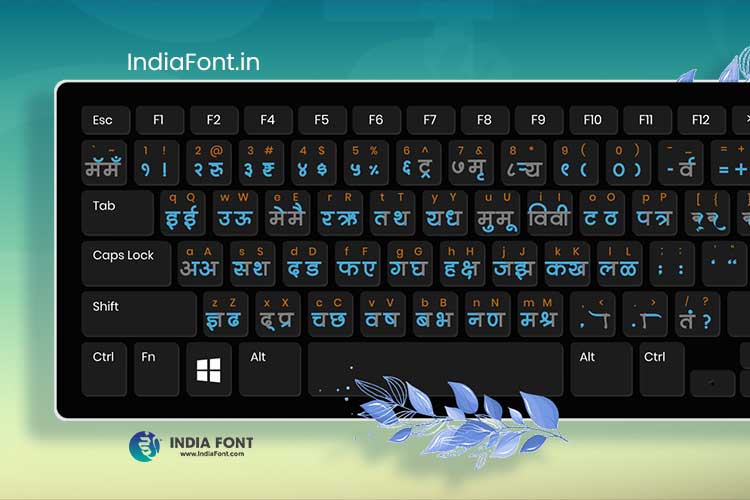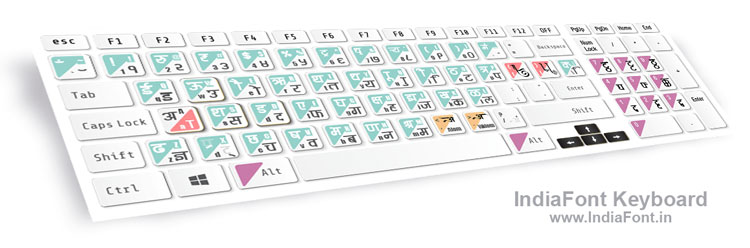
Hindi Fonts keyboard as English to Hindi typing to do easy typing in Hindi Fonts. Bhartiya Hindi font keyboard: We usually are in need of a Bhartiya Hindi fonts keyboard which comes with English to Hindi typing, and phonetic-based typing so we can type easily without the need for additional software.
For our domestic designs, we work with Hindi fonts, and as we are all aware that typing with Unicode fonts can need some expertise with typing skills for different keyboards. But with IndiaFont fonts, we provide a phonetic-based keyboard which offers English to Hindi typing instantly and you don't have to spend time learning Hindi keyboard for typing.
With the advent of technology, typing in Hindi has become more accessible and user-friendly. This is where the significance of the Hindi font keyboard shines, providing a seamless transition from English to Hindi typing and empowering users to effortlessly create content in their preferred language.
In the realm of design, be it for personal projects or professional endeavors, the use of Hindi fonts is crucial for connecting with an audience that resonates with the language. However, mastering the art of typing using Unicode fonts across different keyboard layouts can be a daunting task. This is where the convenience of IndiaFont's Hindi font keyboard shines. By providing a user-friendly interface and a layout akin to the English keyboard, it removes the barriers to Hindi typing, making it accessible to individuals of varying typing skill levels.
Phonetic-Based Typing
Type in English phonetics and watch as it transforms into Hindi text automatically. No complex learning required for immediate productivity.
Instant Hindi Conversion
Real-time conversion from English to Hindi as you type, making the transition seamless for users familiar with English keyboards.
Professional Design Ready
Perfect for graphic designers, content creators, and professionals who need efficient Hindi typing for their projects.
How IndiaFont's Hindi Keyboard Works
Understanding the mechanics of the Hindi font keyboard is essential to harness its power. The layout closely resembles that of the English keyboard, ensuring a comfortable transition for users familiar with typing in English. Special keys are strategically placed to accommodate the various Hindi characters. Using the phonetic-based typing method is as easy as pie – click on the text box and start typing in English. For instance, to type "राम," simply type "R A M A," and witness the magic unfold.
English-Like Layout
Familiar QWERTY keyboard layout with Hindi character mapping makes learning intuitive and reduces the learning curve significantly.
Special Character Keys
Strategically placed keys for conjunct characters, vowel marks, and special symbols ensure complete Hindi typing capability.
Real-Time Preview
See your Hindi text appear instantly as you type English phonetics, providing immediate feedback and confidence in your typing.
Cross-Platform Support
Works seamlessly across Windows, Mac, and mobile devices, ensuring consistent typing experience everywhere you work.
To enhance your experience with the Hindi font keyboard, we offer an array of free Hindi fonts. These fonts cater to a wide range of preferences, allowing you to select the one that aligns with your content and style. These fonts seamlessly integrate with the Hindi font keyboard, offering a harmonious typing experience that makes your creations truly stand out.
Perfect for phonetic typing with clear character recognition
Simple and clean font ideal for everyday Hindi typing
Regular weight font perfect for professional documents
Traditional styling with excellent keyboard compatibility
Spiritual and cultural design for devotional typing
In conclusion, the Hindi font keyboard is a gateway to effortless Hindi typing, eliminating linguistic barriers and enhancing your ability to express yourself digitally. From phonetic-based typing to a layout reminiscent of the English keyboard, it's designed to accommodate users of all skill levels. Whether you're a design enthusiast, a content creator, or someone who simply enjoys the art of typing, the Hindi font keyboard opens up a world of possibilities. So, dive into the realm of easy Hindi typing and let your creativity flow with every keystroke.